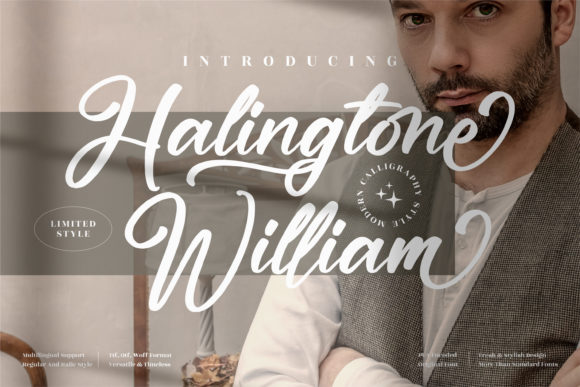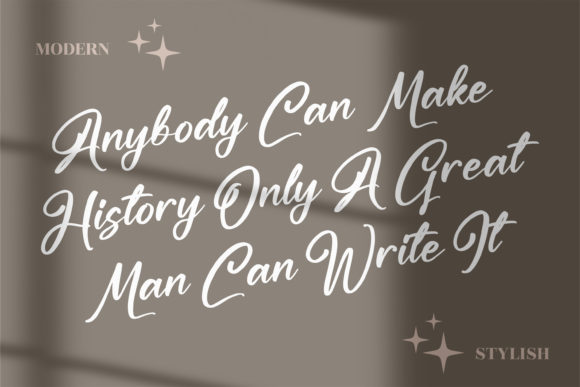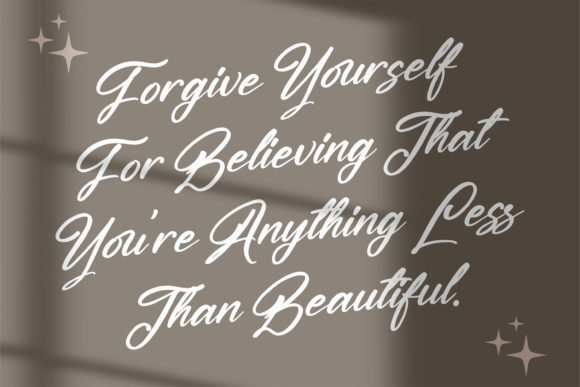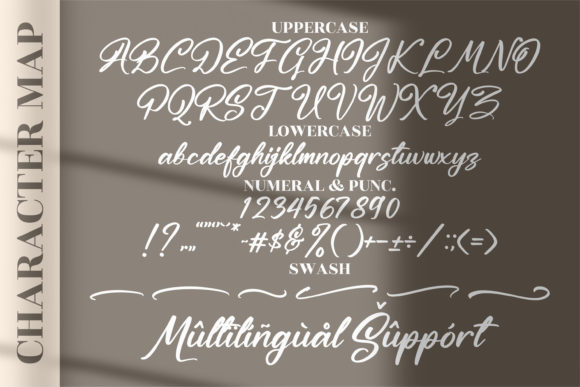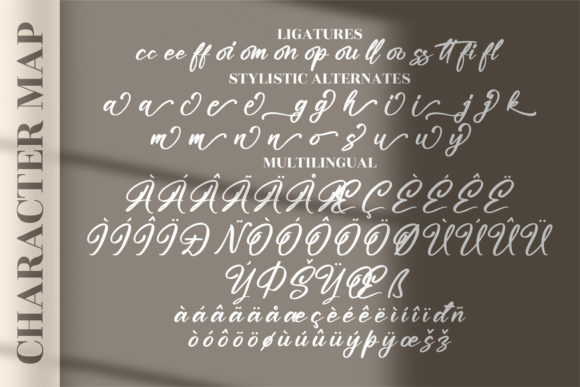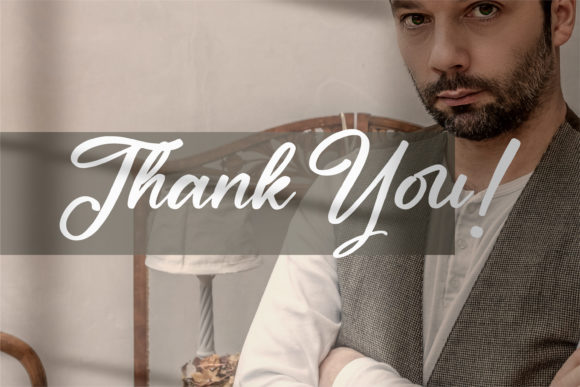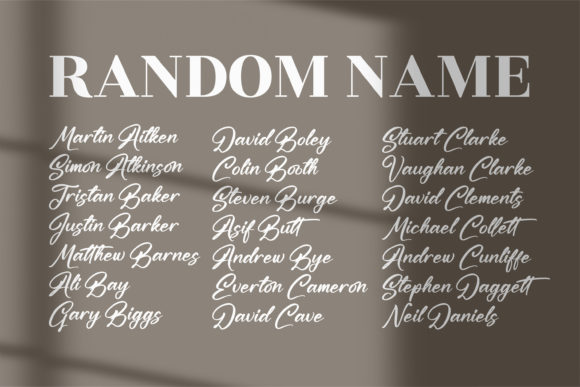
Halingtone William Font
About Halingtone William Font
Halingtone William is a lovely and delicate script font that exudes elegance and class. This font was particularly crafted for those who need a beautiful and refreshing look to their designs.